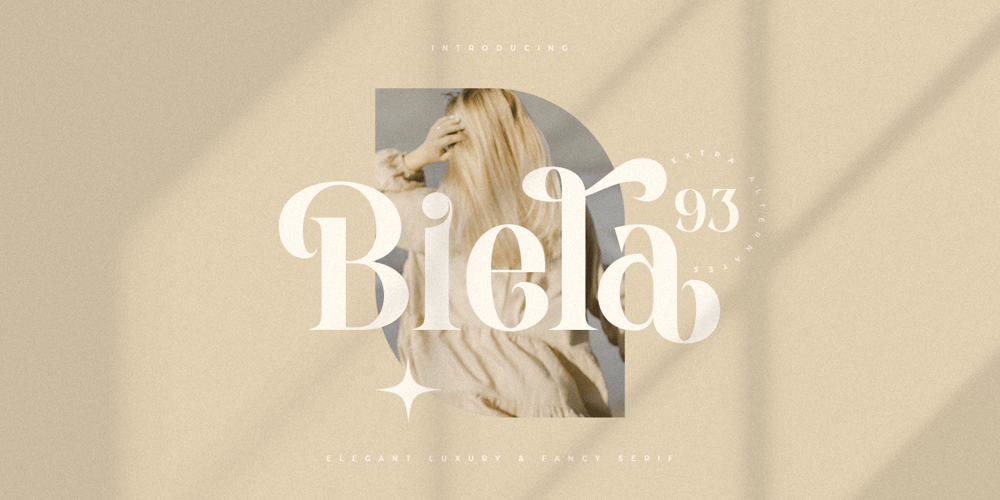
Biela Font Family was designed by Zamroni Hamzah and published by Sensatype Studio. Biela contains 1 styles and family package options. An Elegant Luxury Fancy Serif font that we created special for unique branding needs, with classy shape will be ready to add value of your brand. It so nice to leverage designer or product owner that need solutions to make their design look more standout and modern. And specially for this font, We prepared any characters to help you create unlimited variations for your creative needs.Biela Unique Modern Display Font ready with: Ready with Unique Characters 4 format already Preview as a inspirations that you can do with Biela font Ready with Lowercase and Uppercase characters Wish you enjoy our font. ๐